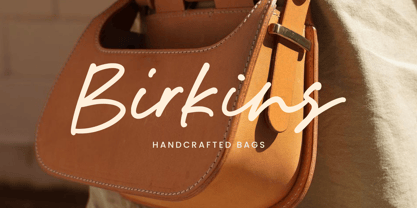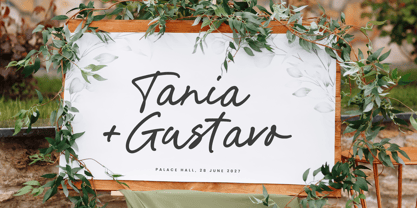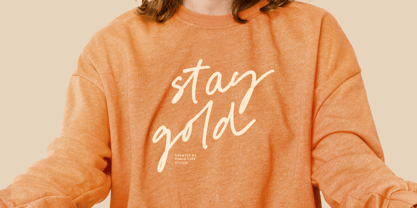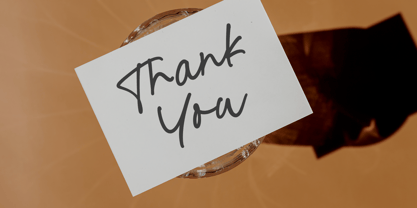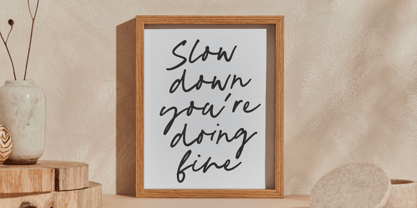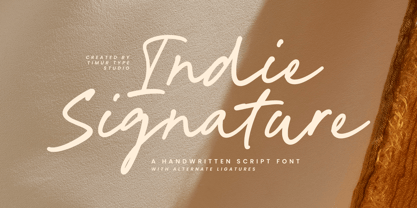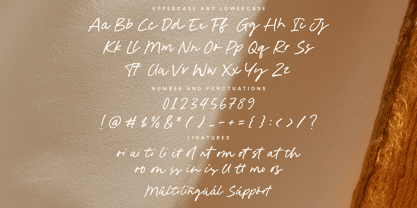
Indie Signature
The Indie Signature Font Family was designed by Wara Sigit Tri Pamungkas and published by Timurtype. Indie Signature contains 1 styles. More about this family
Indie Signature is a Handwritten Script Font
This font is a stylish handwritten script font that mimics the natural flow and character of handwriting. It features fluid strokes, elegant curves, and a casual yet refined aesthetic, making it ideal for projects like branding, logos, invitations, or any design that seeks a authentic touch. The font exudes individuality and creativity while maintaining readability and charm.
Indie Signature Font also supports multilingualism